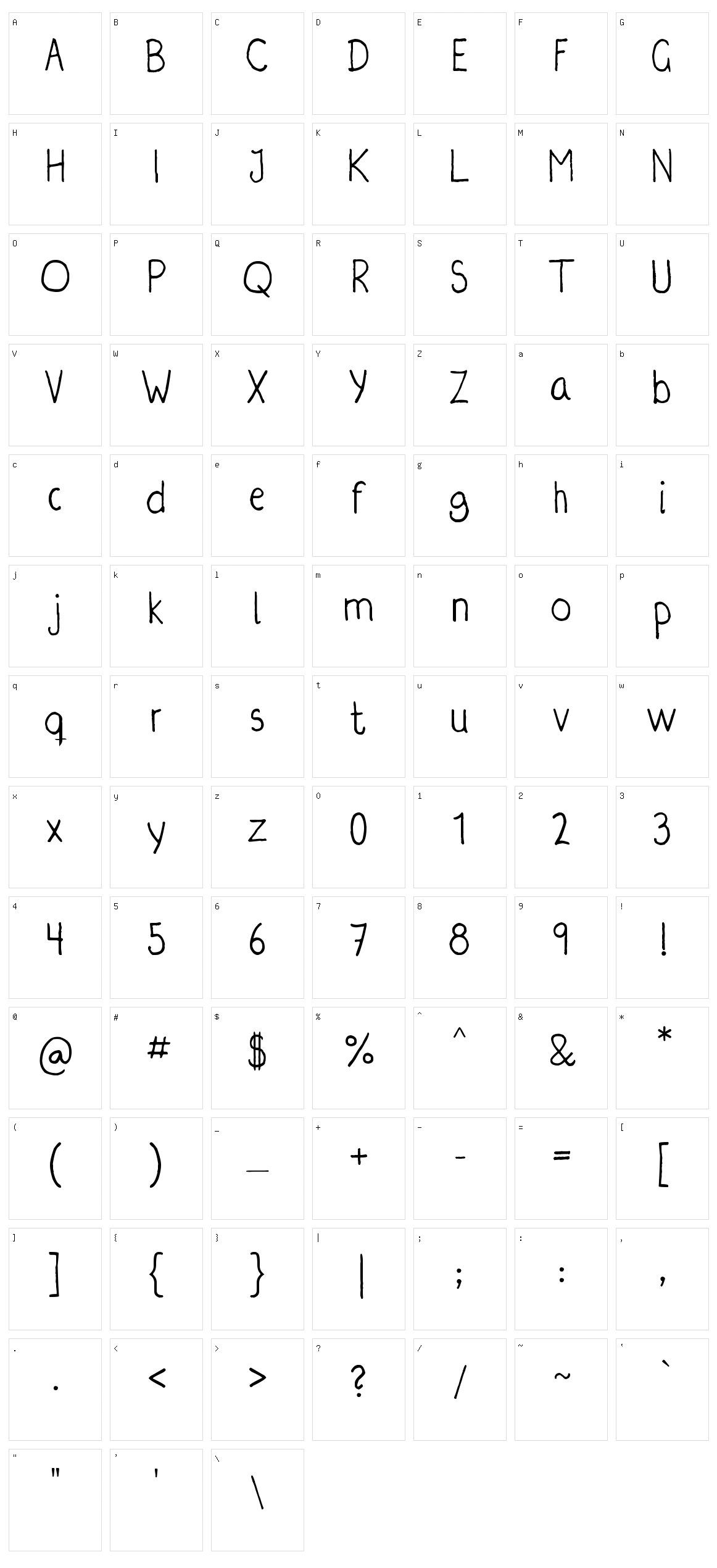
The free font Irregularis is carefully designed by Arman Ay, showcasing a thoughtful balance of creativity and usability and falls under the Script font style. When you download the ZIP file, it contains only 27.43 KB of font files, making it lightweight and quick to download. Please review the license details below to understand permitted usage and distribution rights. If license information is not available, we recommend using this font for personal projects only or contacting the author directly for commercial usage permissions.